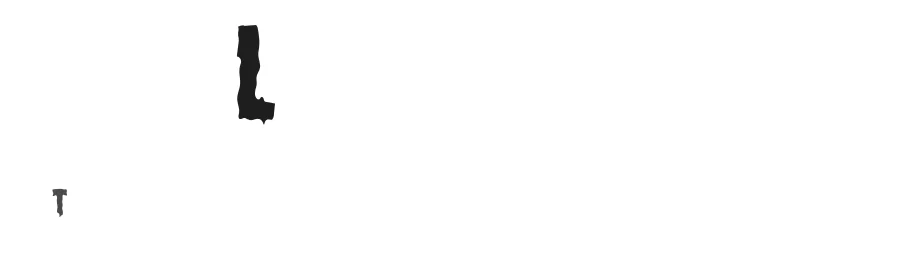
About Rusty Fever Font
RUSTY FEVER_BOLD is a Slab Serif font that evoke the suggestive atmosphere of the depth of oceans and the water erosion aspect.
The corroded and rusted effect confer to these fonts an oxidized appeal, emphasizing their own irregular shape.
Each single font is created by 288 glyphs, including OpenType variants that may only be accessible via OpenType-aware applications.
Each basic glyph, (uppercases, lowercases and numbers), is followed by an OpenType variant.
Rusty Fever Font is a decorative font that shines as a display or heading face. Pair it with a clean sans-serif or serif font for body text β the contrast creates a clear hierarchy while the two styles stay balanced and easy to read.